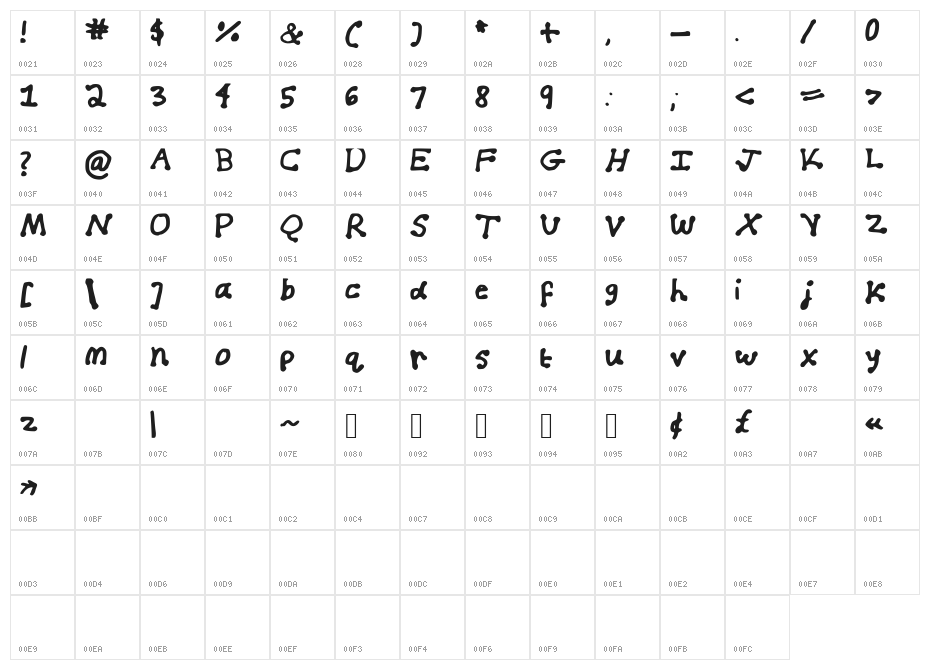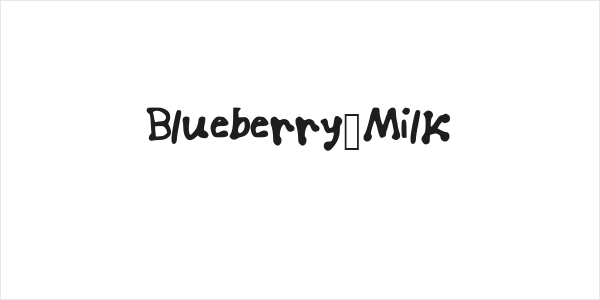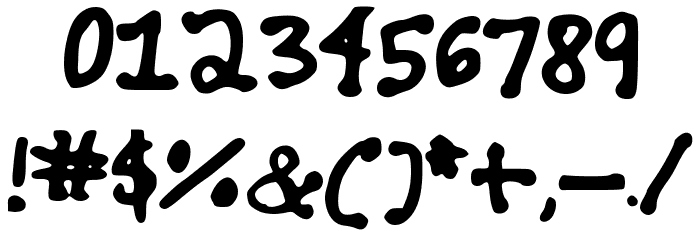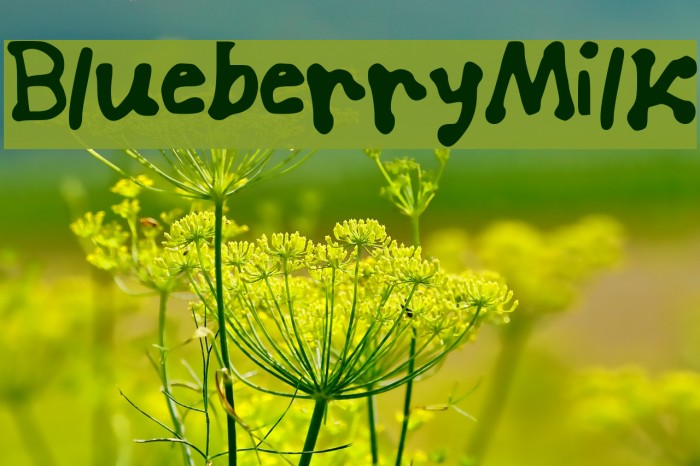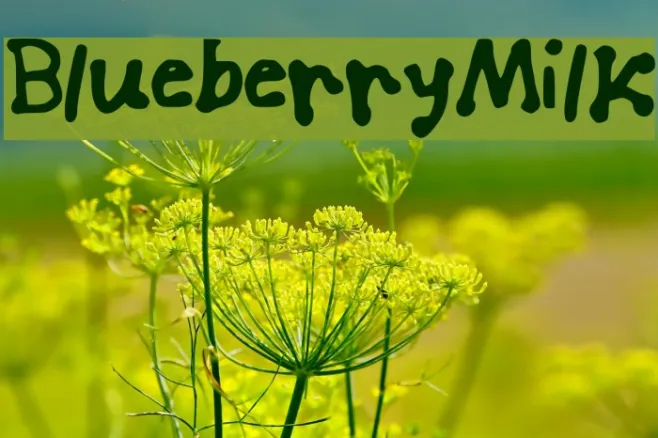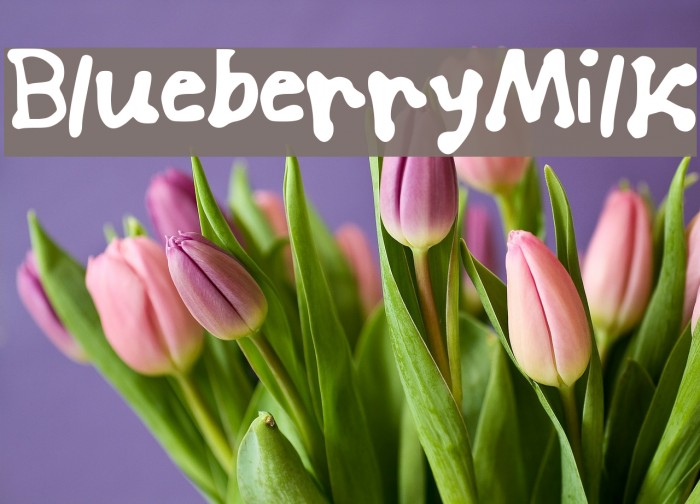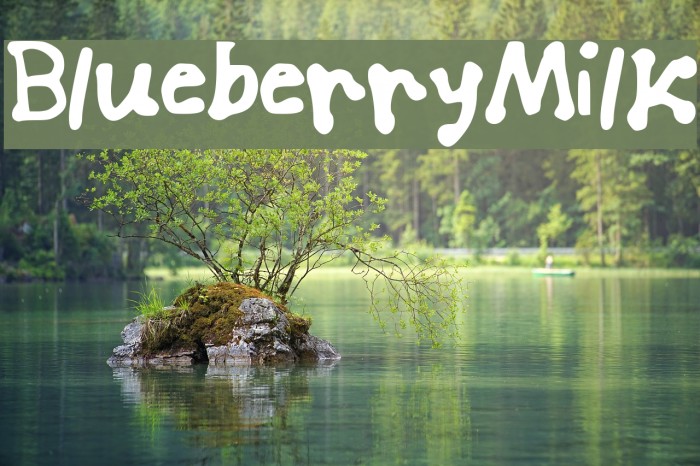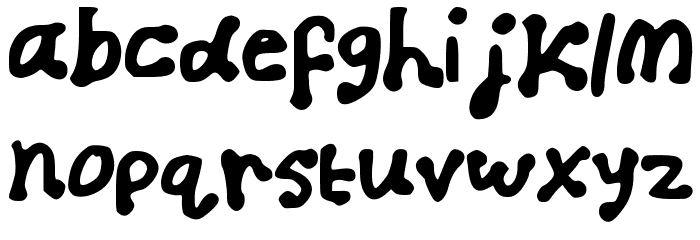
Blueberry_Milk Font
Blueberry_Milk Description
This playful and whimsical font features a hand-drawn style with a bold, rounded appearance. The characters have a casual, informal look, with uneven strokes and a slightly irregular baseline that adds to its charm. The uppercase and lowercase letters are distinct yet maintain a cohesive style, making it versatile for various design needs. The numbers and special characters are crafted with the same playful touch, ensuring consistency throughout. This font is perfect for projects that require a fun and approachable aesthetic, such as children's books, playful branding, or creative invitations.
| Proposed Projects | Ideal for children's books, playful branding, creative invitations, and casual design projects. |